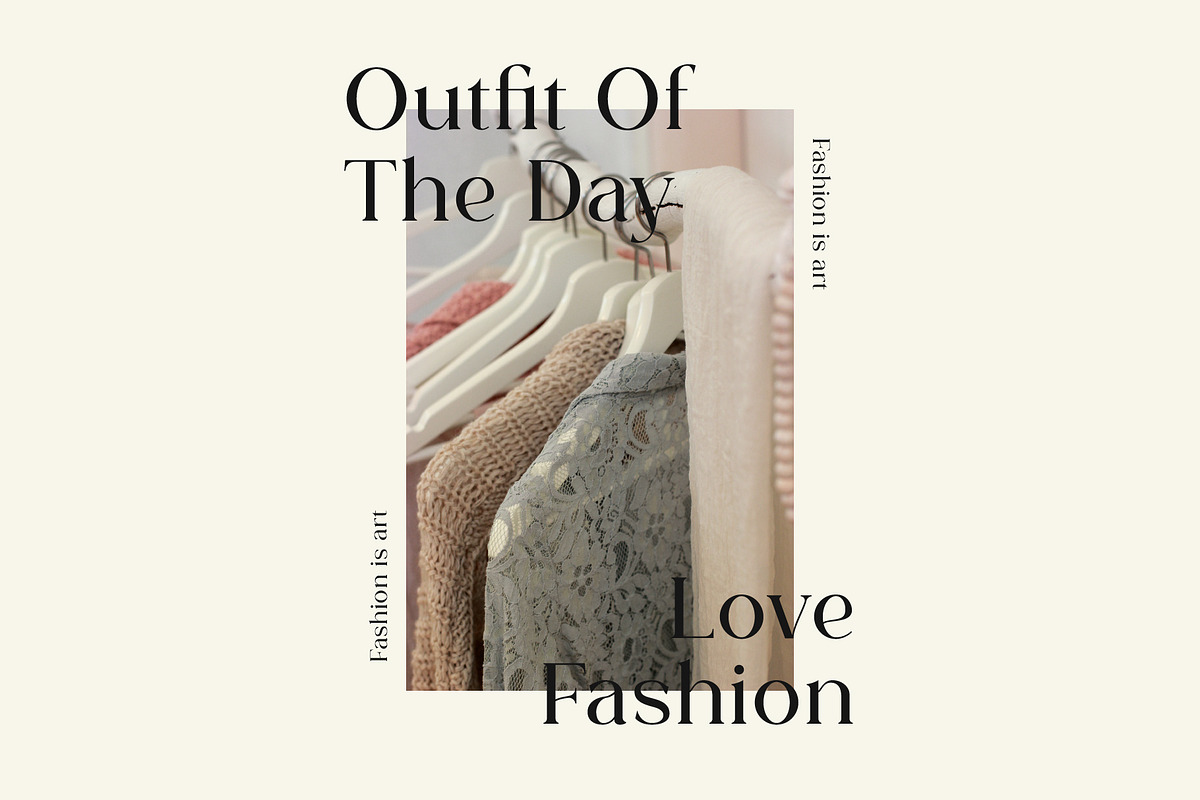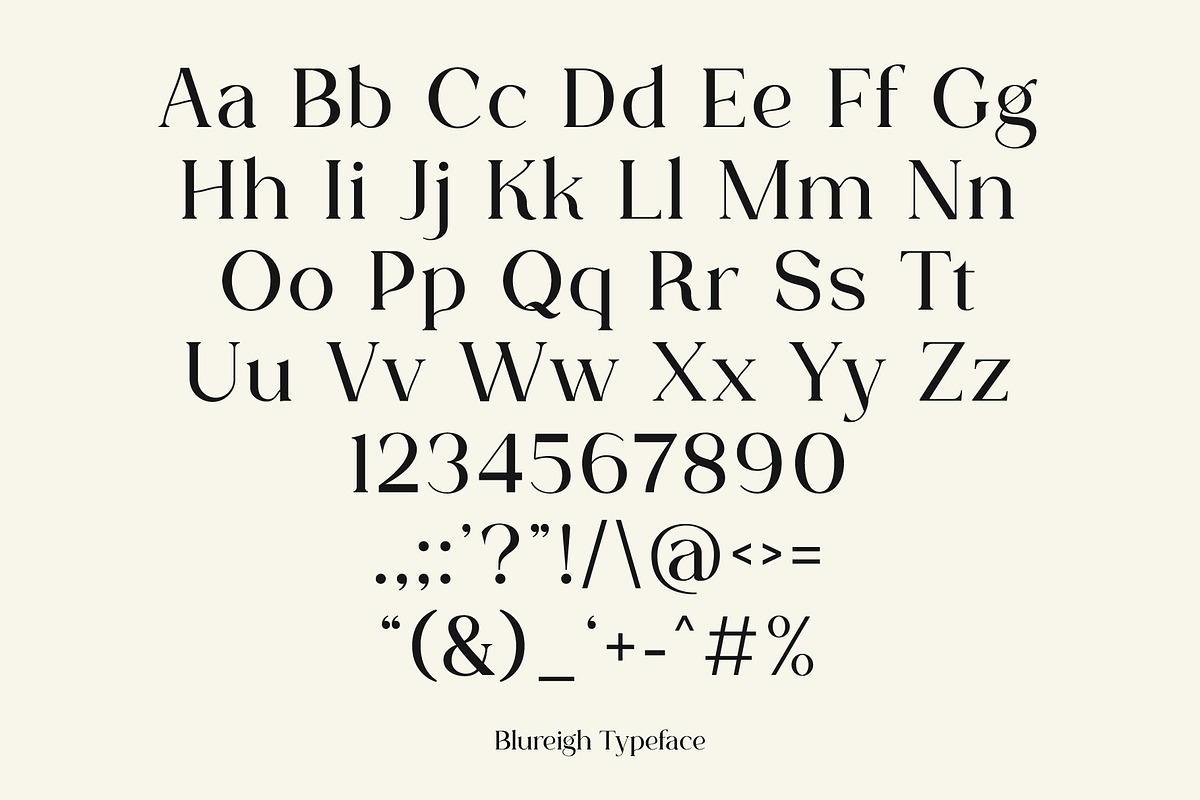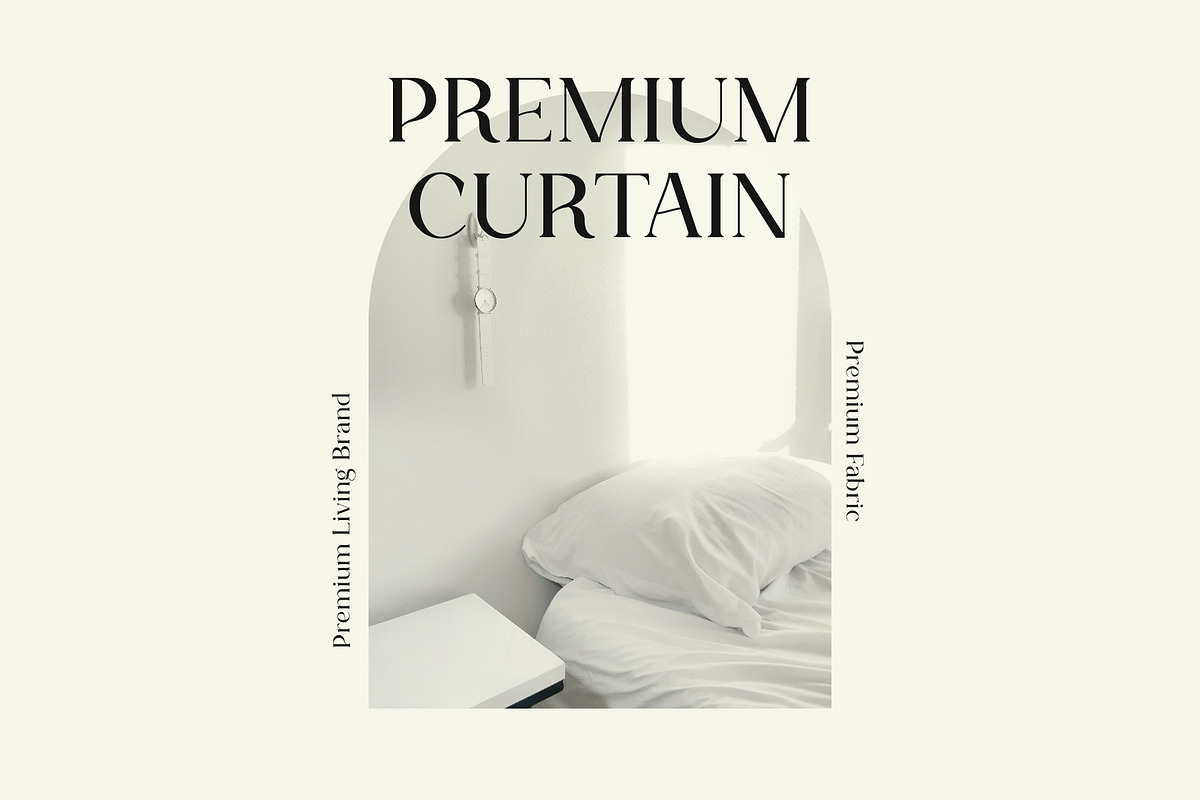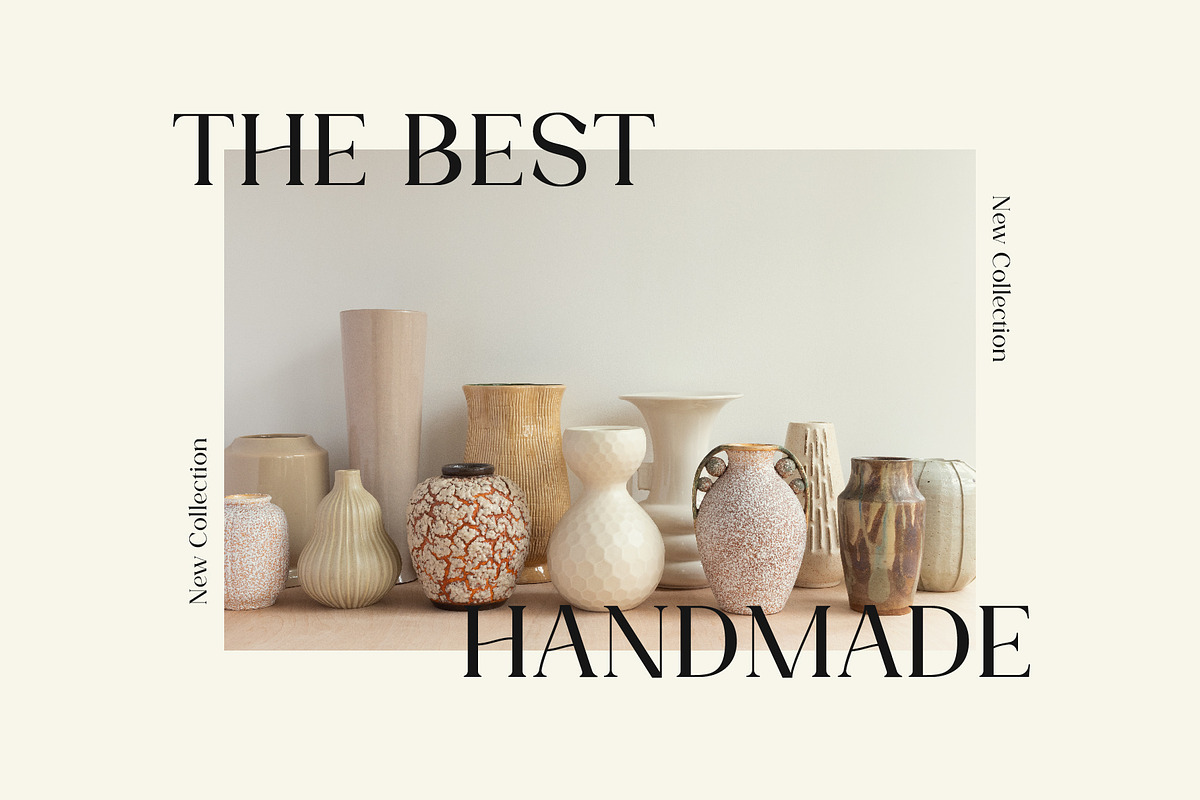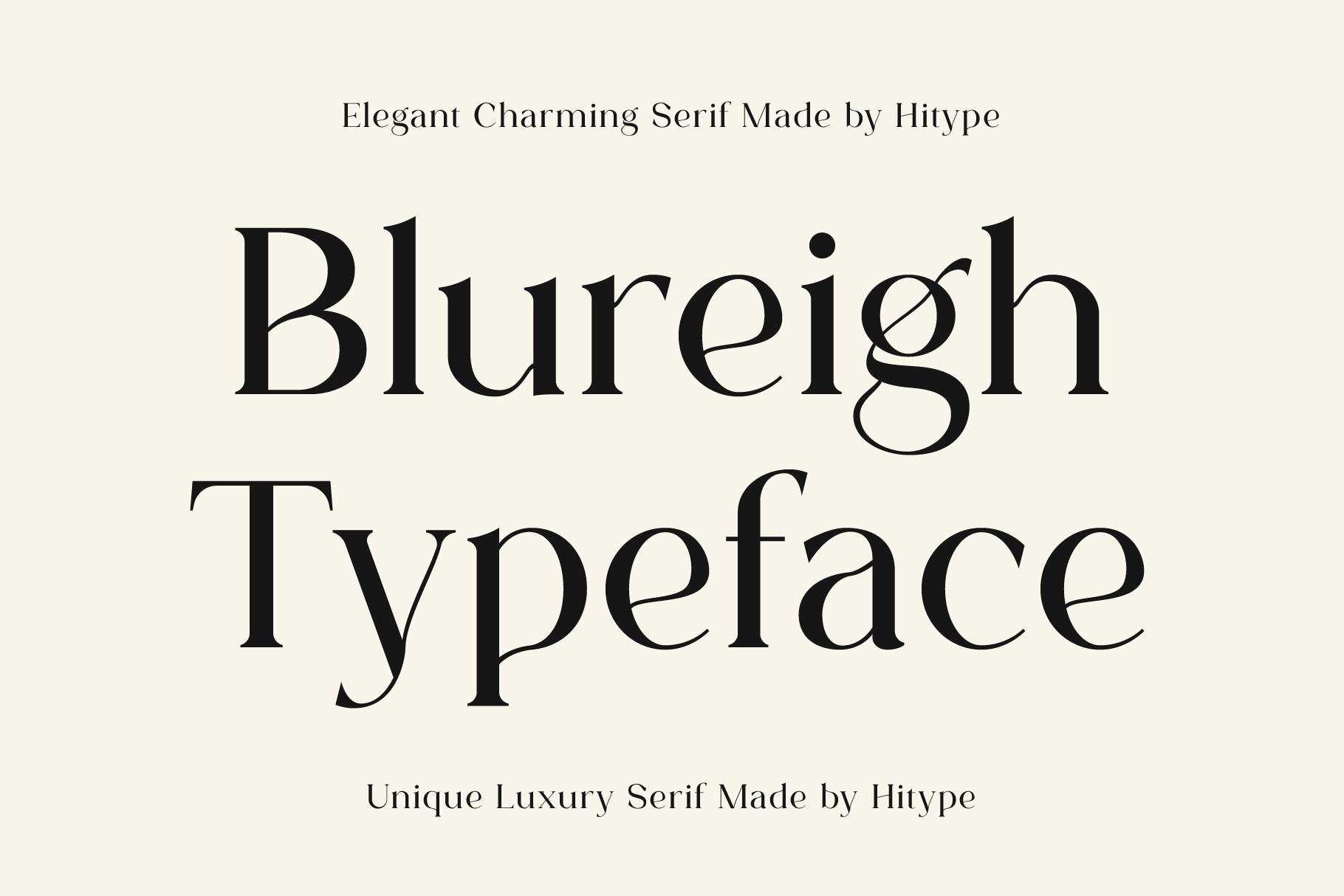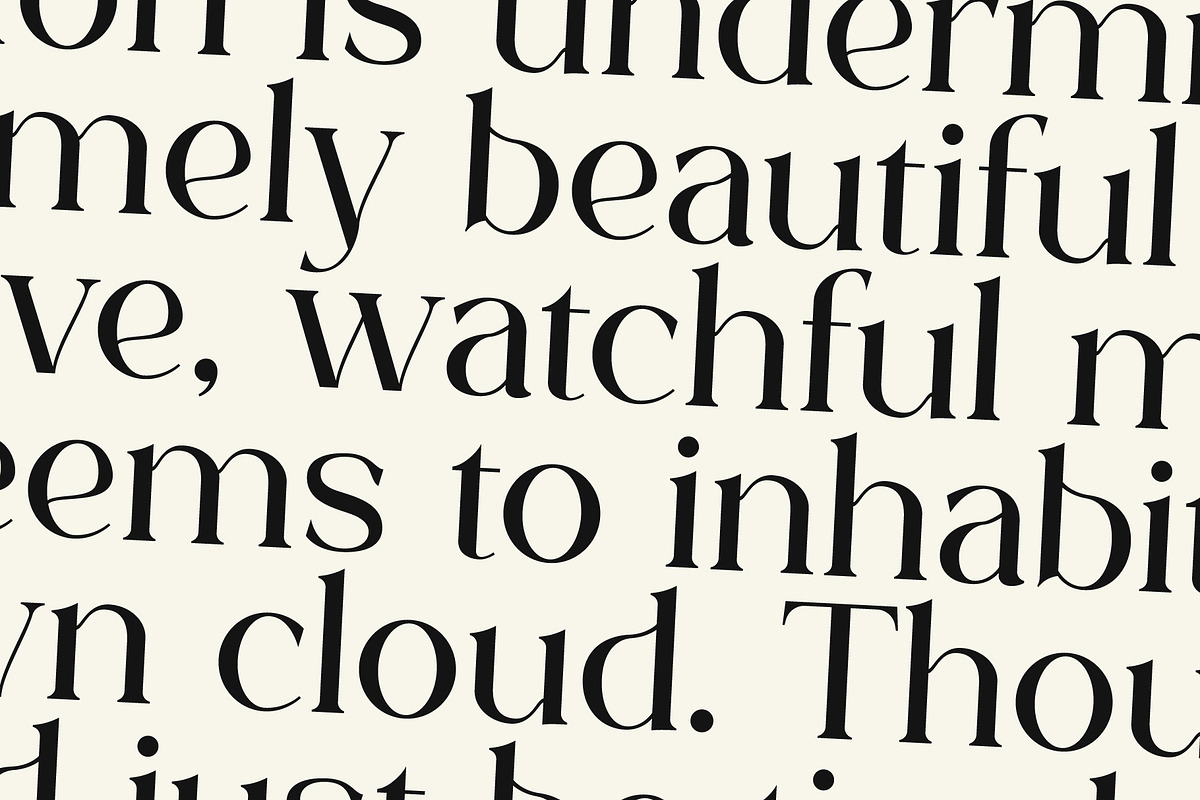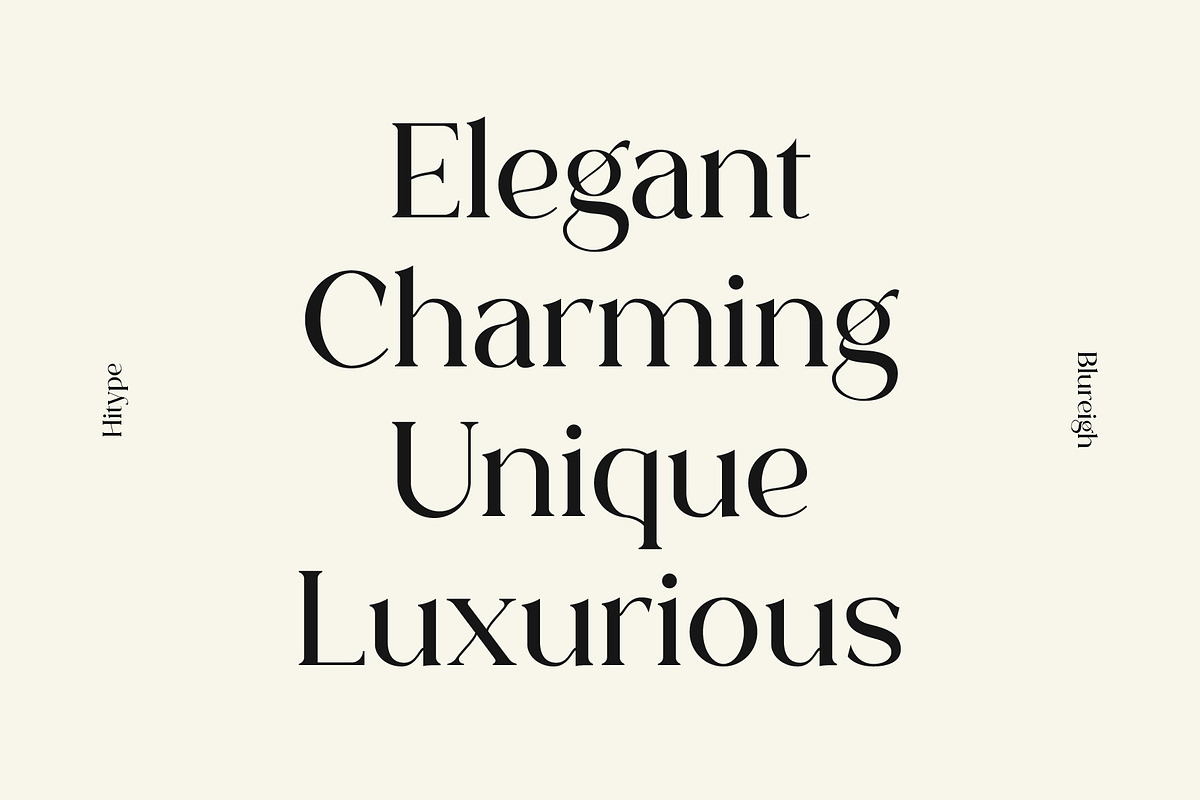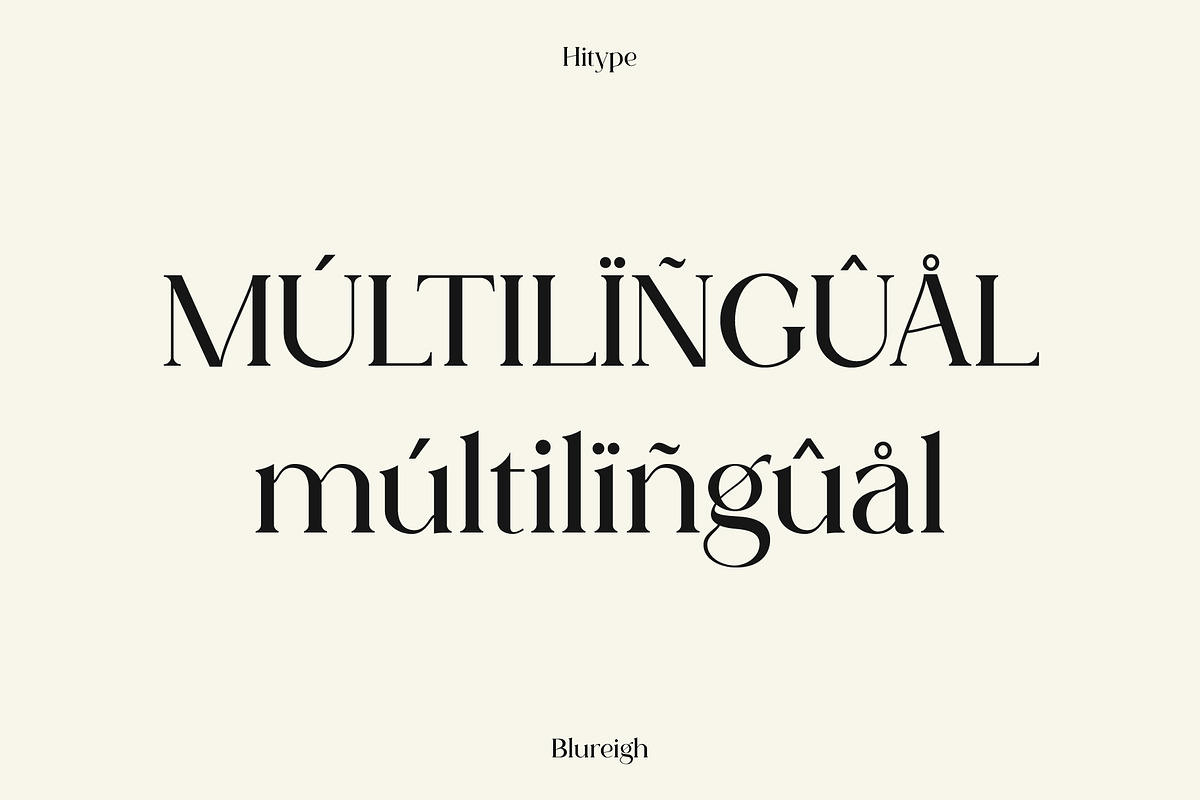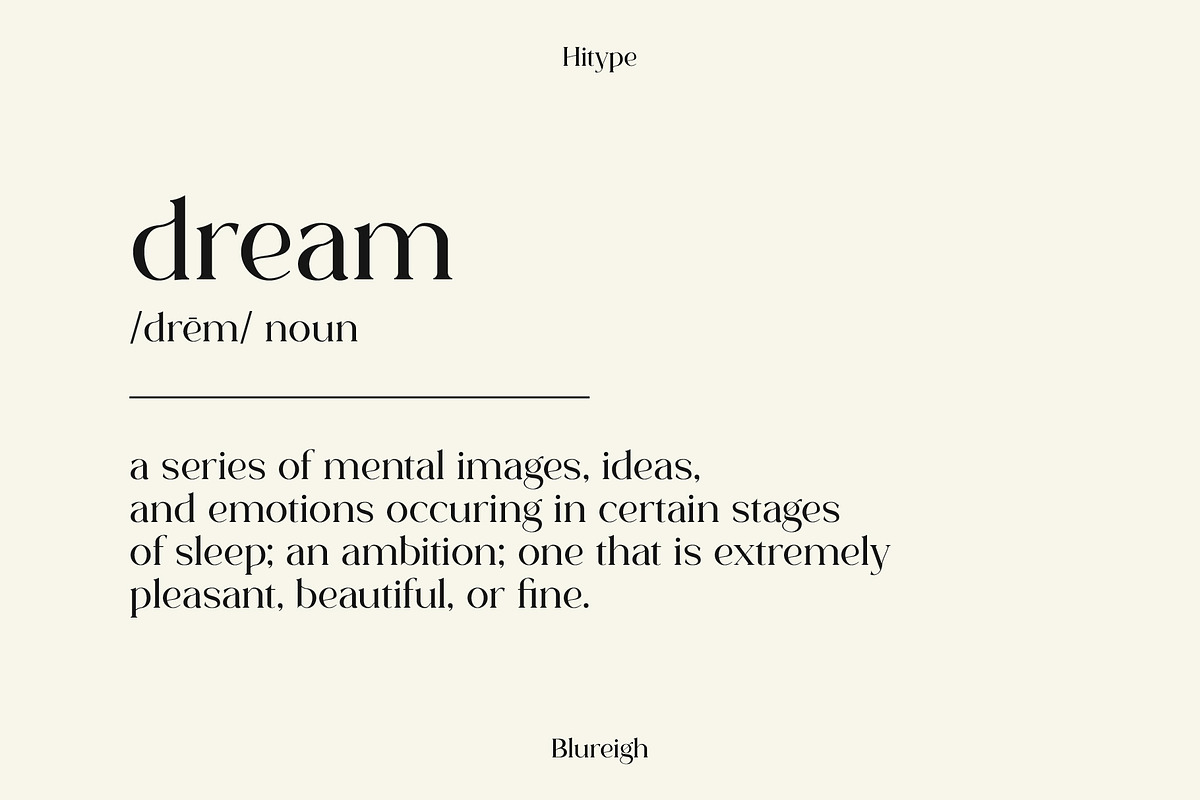
Blureigh is an elegant serif typeface that blends refined charm with a modern fashionable touch. Its delicate curves and graceful proportions bring a sense of sophistication, making it ideal for luxury branding, editorial layouts, invitations, packaging, and chic logos. With its unique style and timeless elegance, Blureigh adds a graceful voice to any creative project, from print to digital.
Features: Uppercase & lowercase letters - Numbers & punctuation - Multilingual support - Open Type - Elegant strokes with refined curves - Perfect for branding, editorial, and luxury design